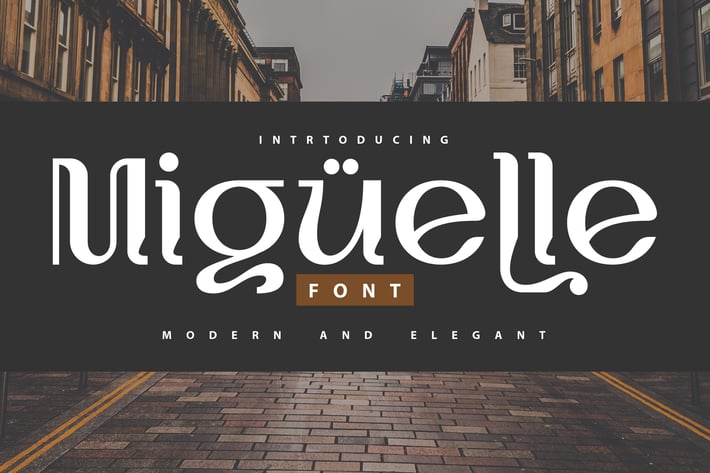
Miguelle Modern Font
Miguelle Modern Font - is a new font that is authentic and suitable for many of your visual needs, like for invitation, greeting cards, branding materials, business cards, quotes, posters, and more!
special character for Alternates and Ligatures